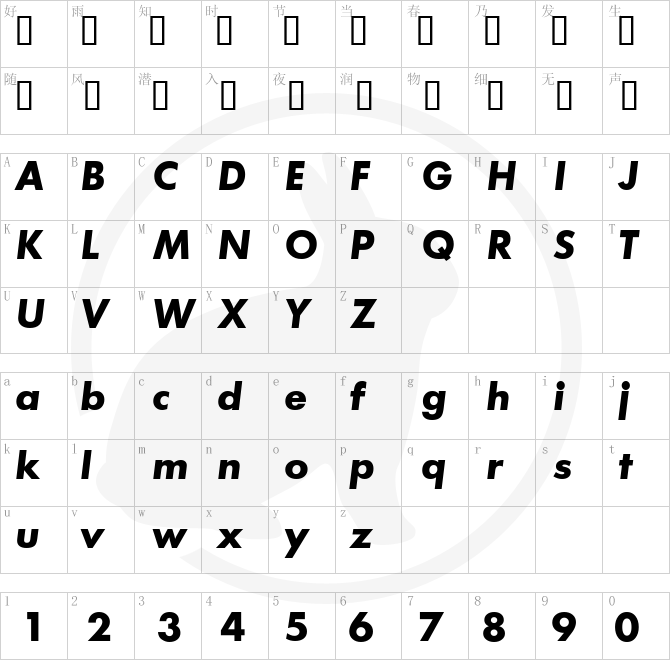
C BoldItal.ttf is a very beautiful artistic font, C BoldItal.ttf is widely used in the design and printing of various books and pictures,C BoldItal.ttf has a strong visual impact,C BoldItal.ttf is a commonly used font in newspapers, magazines and books, and is used in posters, e-commerce Poster design, store design, logo design, font design and other fields.C BoldItal.